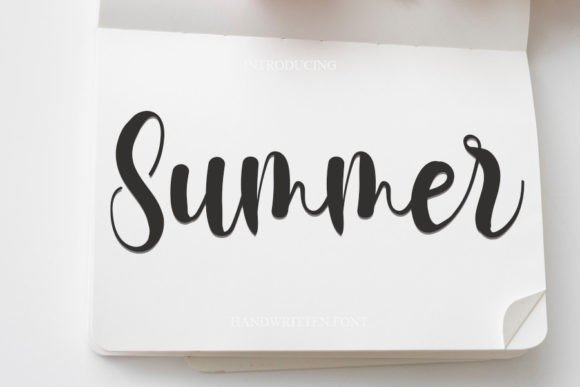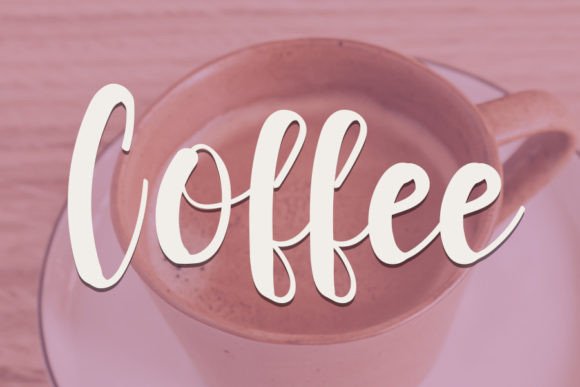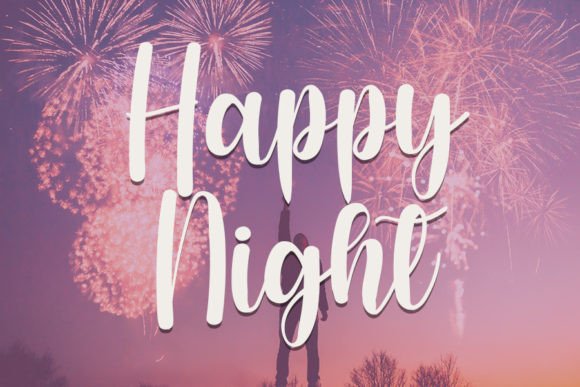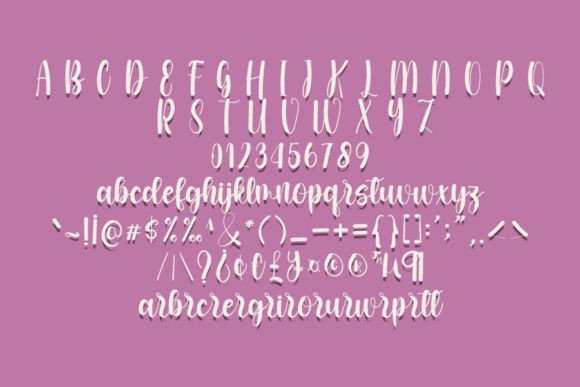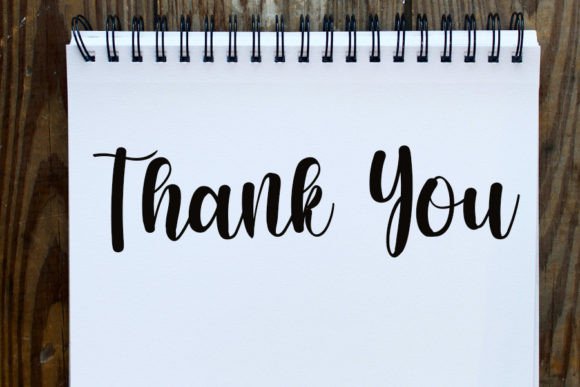
Babey Font: Elevate Your Designs with a Modern Handwritten Style
In the world of typography, a good font can make all the difference in the success of a design project. For designers and crafters looking for a unique and modern handwritten style, Babey Font is an excellent choice. Inspired by classic calligraphy, Babey Font brings a cool and spotless form to the table, making it perfect for a wide range of applications.
The Inspiration Behind Babey Font
Babey Font draws its inspiration from the timeless elegance of classic calligraphy. Calligraphy, an art form that dates back centuries, is known for its beautiful, flowing scripts that convey a sense of sophistication and luxury. Babey Font captures the essence of calligraphy and translates it into a modern, handwritten font that is both balanced and varied.
Key Features of Babey Font
So, what makes Babey Font stand out from other fonts? Here are some of its key features:
- Balanced and Varied: Babey Font strikes the perfect balance between not being too thin and not too thick. This balance gives it a versatility that makes it suitable for various design projects, from elegant branding to creative crafting.
- Modern Vibe: While Babey Font is inspired by classic calligraphy, it has a distinctly modern feel to it. This makes it an excellent choice for designers looking to create contemporary designs with a touch of elegance.
- Spotless Form: The font boasts a clean and spotless form, ensuring that your designs look crisp and professional. This is particularly beneficial for projects where clarity and readability are paramount.
Uses of Babey Font
The versatility of Babey Font makes it suitable for a wide range of design projects. Here are some of the ways you can use Babey Font:
- Branding and Logos: Create stunning brand identities with Babey Font. Its elegant and modern vibe makes it perfect for logos, business cards, and other branding materials.
- Stationery and Invitations: Add a touch of sophistication to your stationery and invitations with Babey Font. It’s ideal for wedding invitations, thank you cards, and more.
- Digital Designs: Whether you’re designing social media graphics, blog headers, or website content, Babey Font can enhance the visual appeal of your digital projects.
- Crafting and DIY Projects: For crafters and DIY enthusiasts, Babey Font can be used in a variety of projects, from scrapbooking to crafting personalized gifts.
Why Choose Babey Font?
With so many fonts available, why should you choose Babey Font for your projects? Here are a few compelling reasons:
- Unique Style: Babey Font offers a unique style that can help your designs stand out from the crowd. Its blend of classic inspiration and modern vibe gives it a distinctive look that is hard to find elsewhere.
- High Versatility: The font’s balanced and varied nature makes it highly versatile. You can use it for a wide range of projects, from professional branding to personal crafting.
In conclusion, Babey Font is a fantastic addition to any designer’s or crafter’s toolkit. Its modern handwritten style, inspired by classic calligraphy, offers a unique and elegant solution for a variety of design projects. With its balanced and varied nature, spotless form, and modern vibe, Babey Font is sure to enhance the beauty of your projects. Whether you’re working on branding, stationery, digital designs, or crafting, Babey Font is an excellent choice.